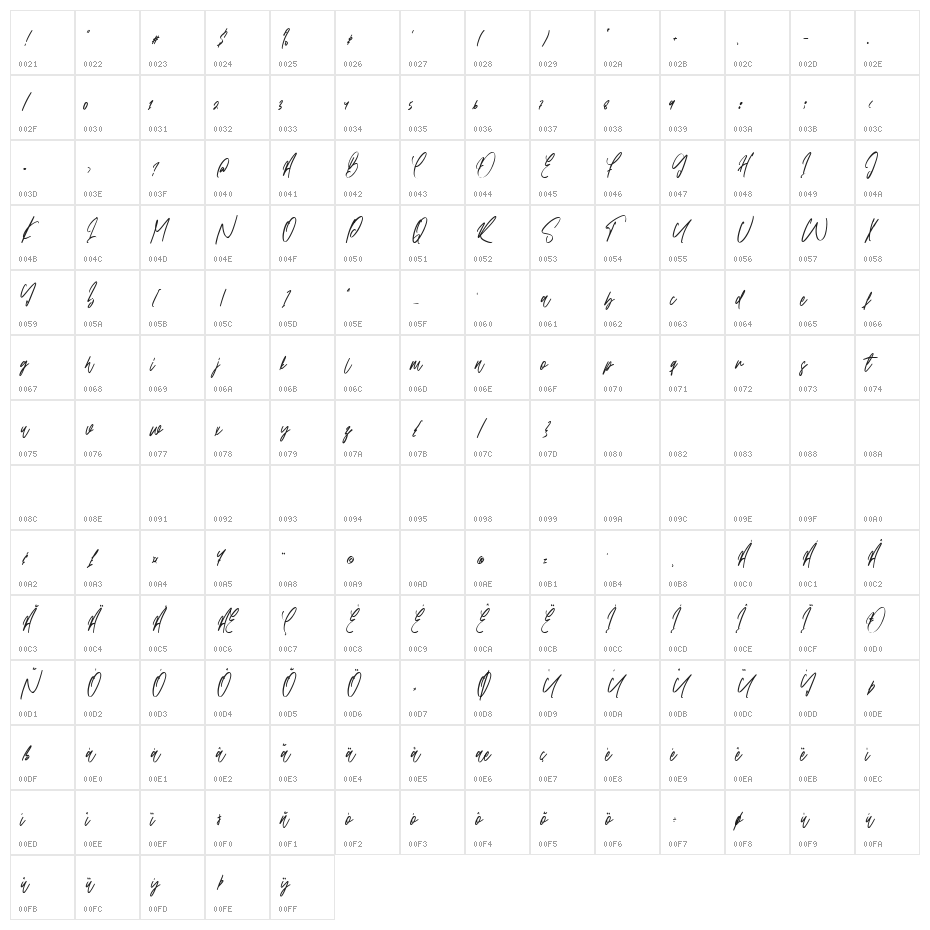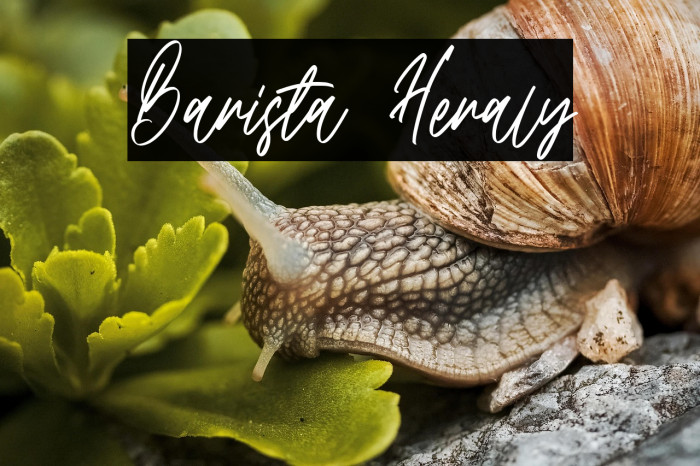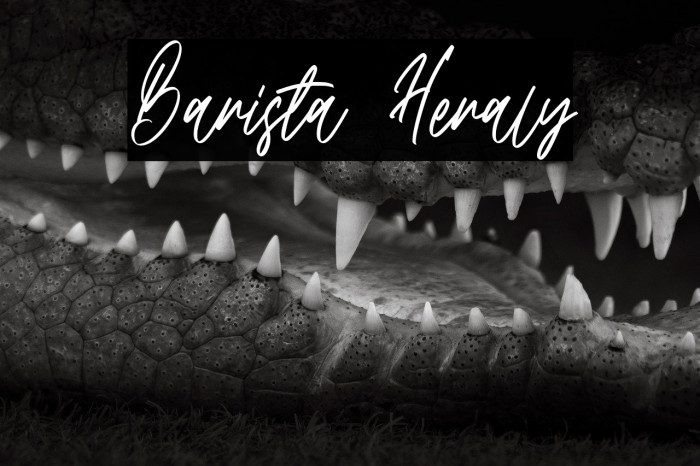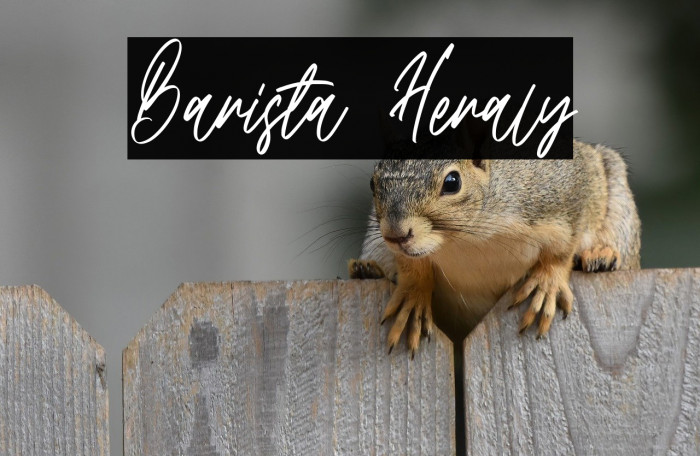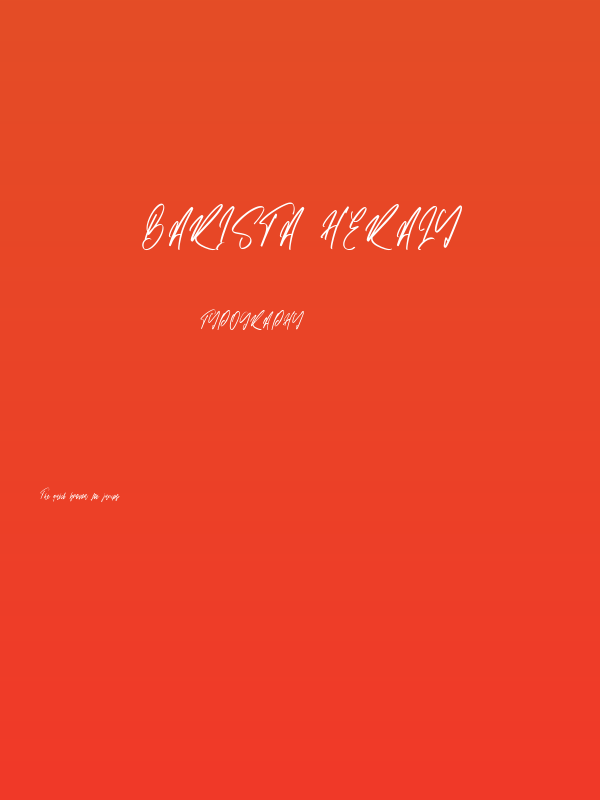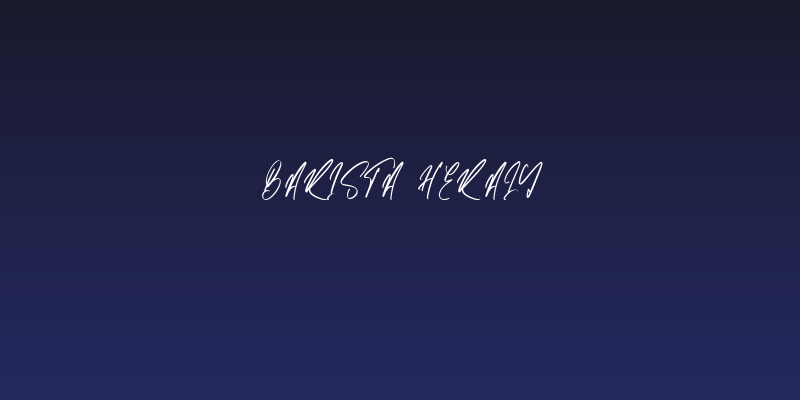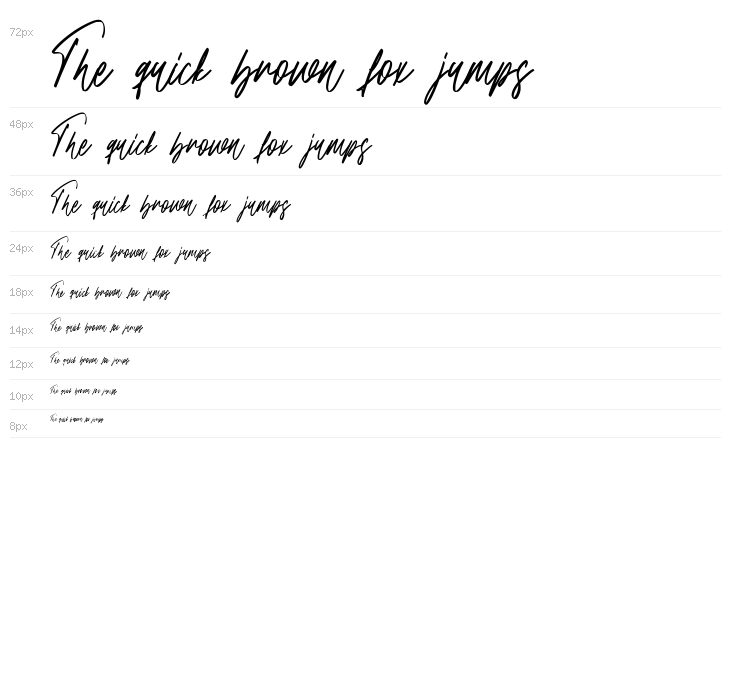
Barista Heraly Font
Barista Heraly Description
This font exudes a modern, handwritten style with a touch of elegance and flair. The characters are fluid and connected, reminiscent of cursive handwriting, which gives it a personal and artistic feel. The uppercase letters are bold and slightly elongated, while the lowercase letters maintain a consistent flow, enhancing readability. The numbers and special characters are crafted with the same attention to detail, ensuring a cohesive look across all elements. This font is perfect for projects that require a personal touch, such as invitations, greeting cards, or branding materials.
| Proposed Projects | Ideal for invitations, greeting cards, branding, and personal projects. |